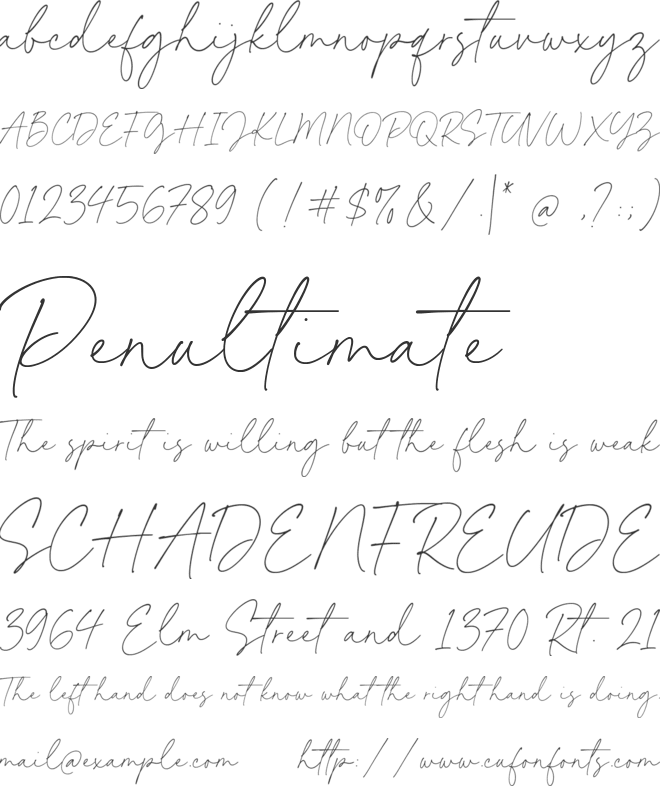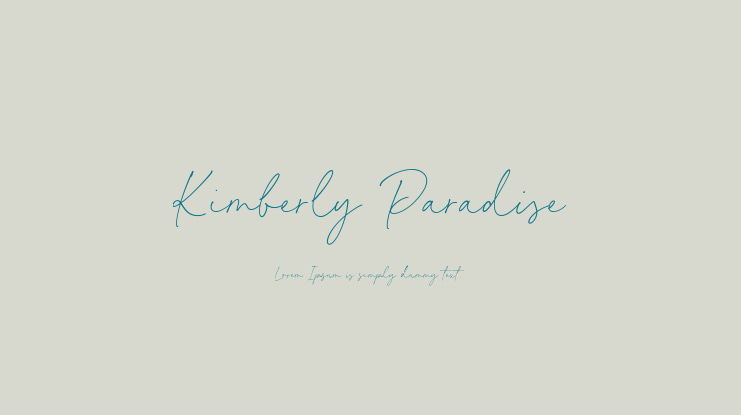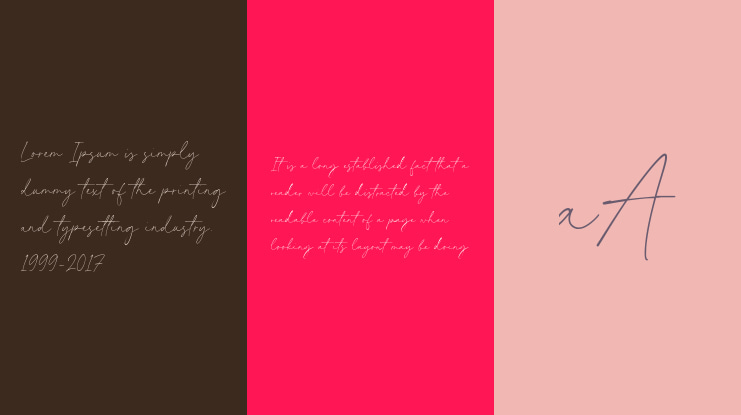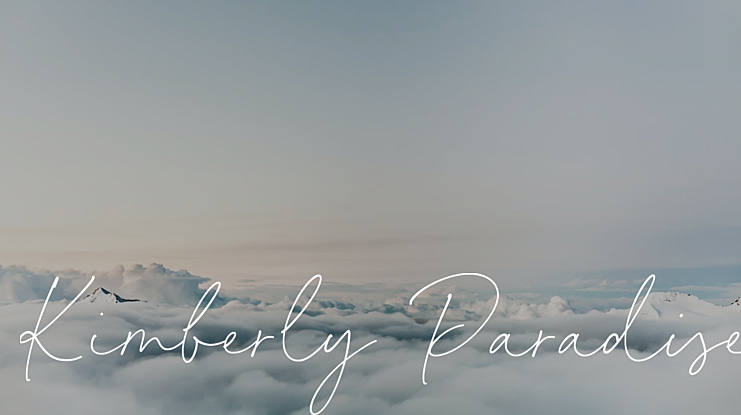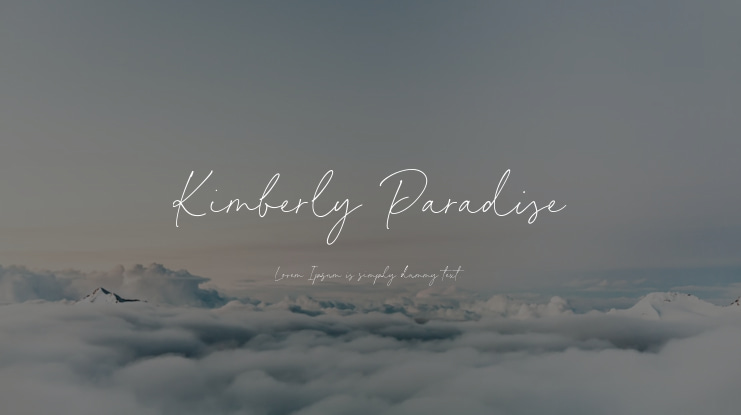
Kimberly Paradise Font
The Kimberly Paradise Handwritten Font is a contemporary and delightful script font that will add a warm and welcoming touch to your business. Explore the beauty of this font and witness its magic firsthand.
Golden Estella is the perfect choice for product packaging, branding projects, magazines, social media, weddings, or simply to convey expressive words against any background.
Key features of Golden Estella Font include: